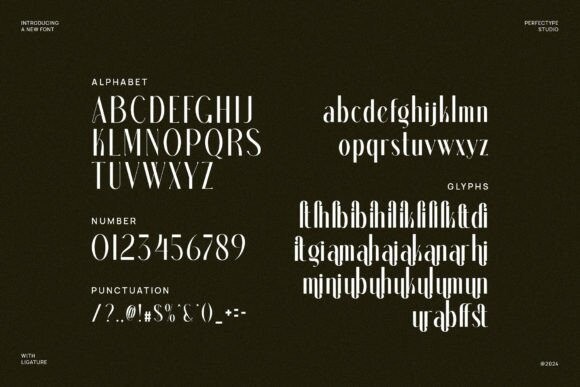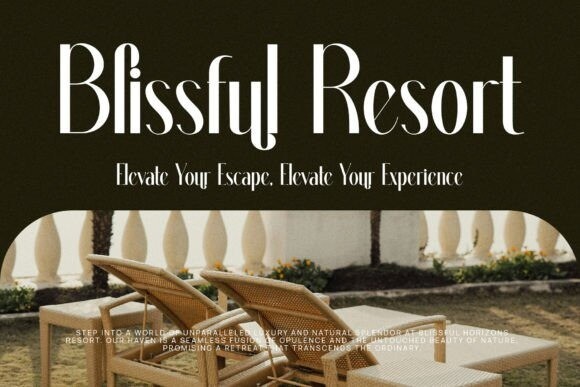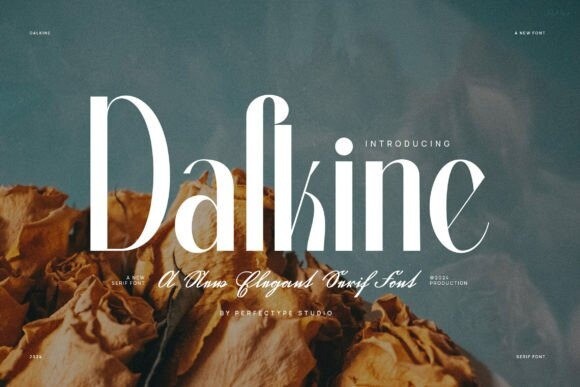
Dalkine Font
Dalkine Font is a modern, stylish, and elegant display font that blends sophistication with contemporary flair. With clean lines, balanced proportions, and subtle details, this typeface adds a touch of refinement to any design project, from editorial layouts and branding to luxury packaging and invitations.